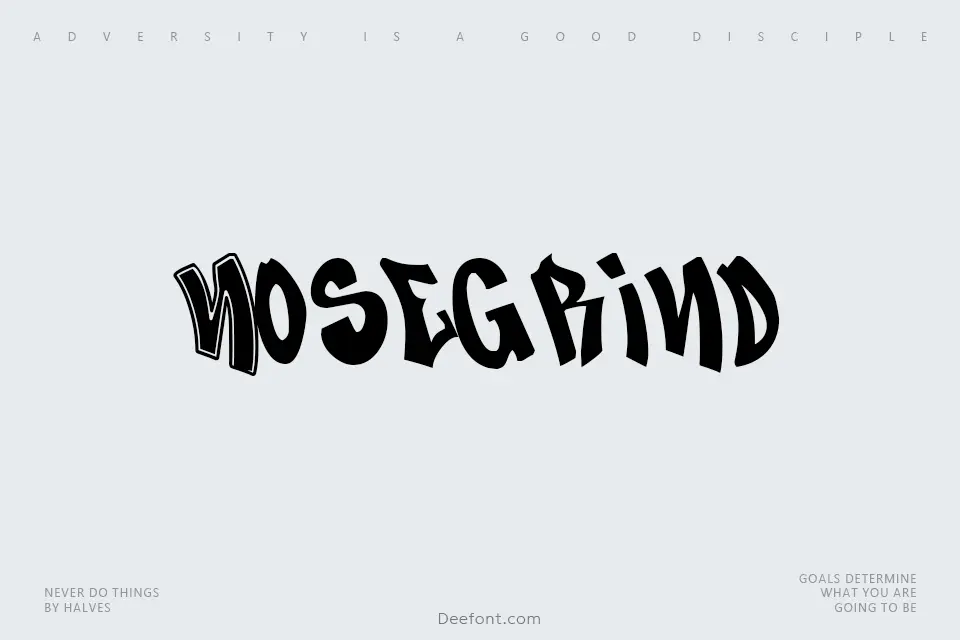
Nosegrind Font
Nosegrind is a bold, graffiti-inspired script typeface featuring sharp, angular lines and dynamic curves that embody skate-culture aesthetics. Created with movement and energy, this font delivers a striking visual impact ideal for urban-themed designs, street art, edgy branding, music album covers, logos, and headlines that demand attention.